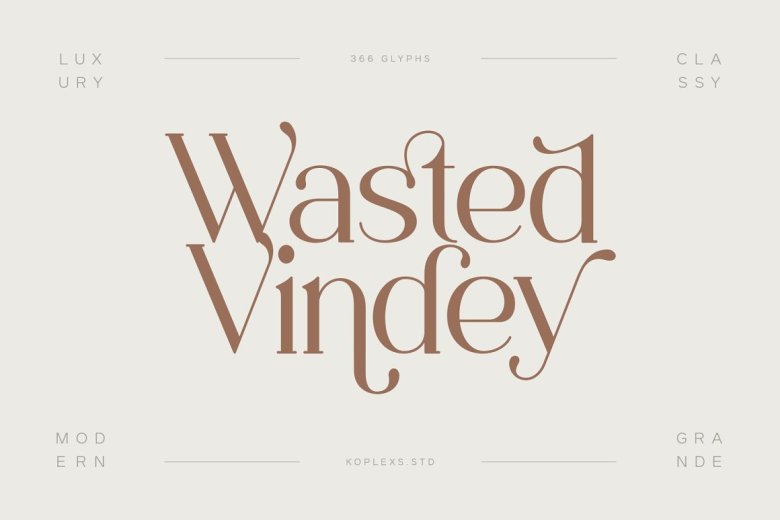
Wasted Vindey Font
The Wasted Vindey Serif Font is a series of characters which is “Classy, modern,” feminine yet beautiful and glamorous. This gives it a unique appearance in all kinds of brand design or creative styles! A blend of beautiful and classy, Wasted Vindey fonts are usable for logos, perfumes, book covers and fashion magazines.
Also invitations plus many other uses. The Wasted Vindey not only features a variety of decorative characters but, compared to the font itself, it also comes with a large number of alternative singular-symbols that will make you fall in love with this font in seconds.
Wasted Vindey Serif Font